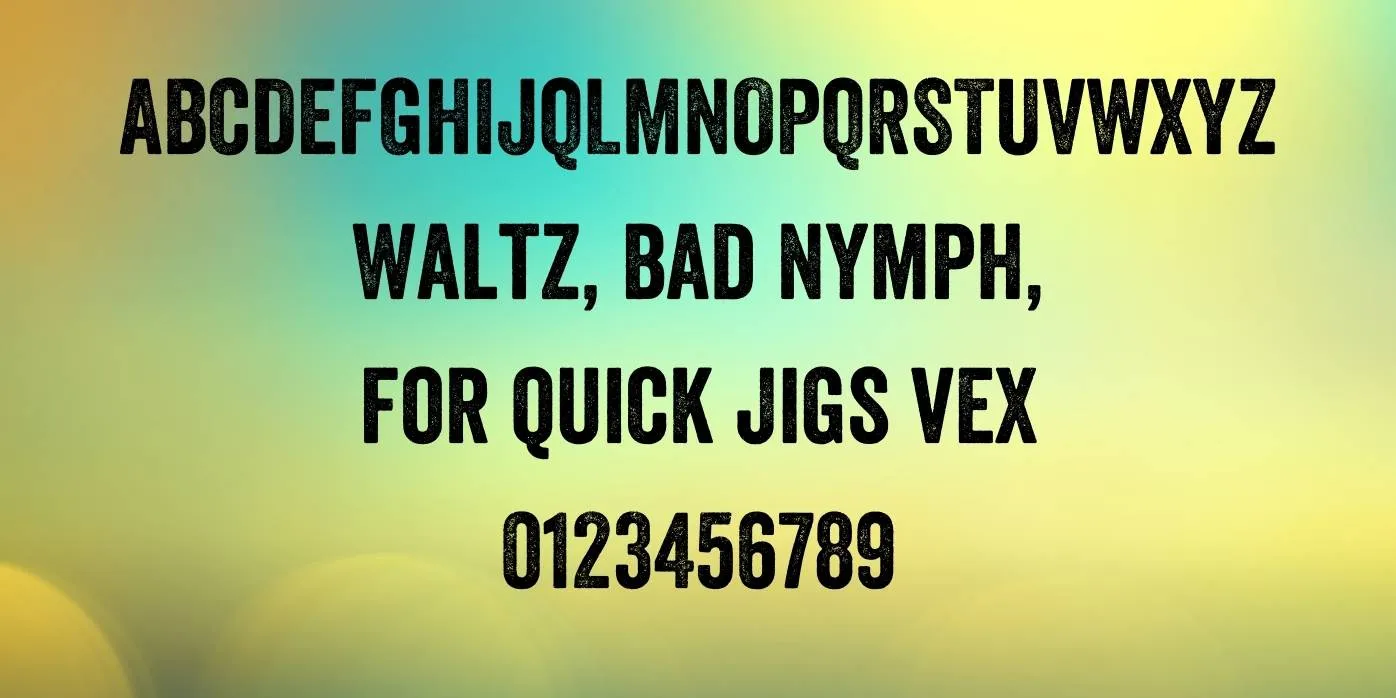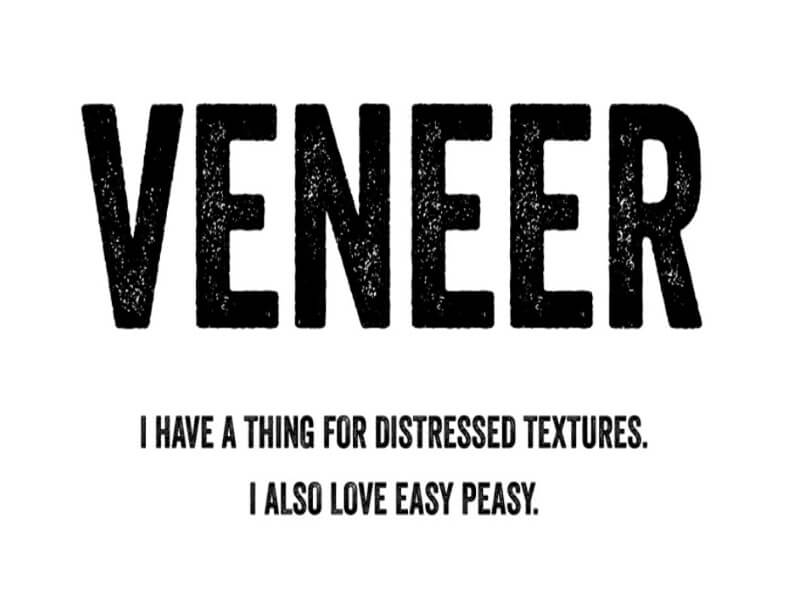
Veneer Font
Let us present the most stunning and classic font known as Veneer Font. It belongs to the Sans-Serif font family. This modern font family was designed by famous and brilliant designer  Ryan Martinson. In the year 2012, This typeface was firstly released by Yellow Design Studio.
This unique font family has hand-crafted letterpress. For all of your graphics-type designs and projects, this typeface is mostly used. Because this typeface has the best and most stylish designs you can easily make your graphic designs by using this attractive typeface. This amazing font is available in further three more fonts.
Veneer Two, and Veneer three are its other typefaces. This font family is more popular and unique for its common usage in Adobe shops. While in text generation, this font family has earned more fame and popularity. It is used everywhere all over the world.
As Lazer Font support different languages this typeface also supports various types of languages. This outstanding font has comes in 81 different Glyphs. This typeface provides fascinating results that impress tour clients. for all of your private purposes, this font family is free for usage.
It has keen and powerful features that is why this typeface is used everywhere according to your exact needs.